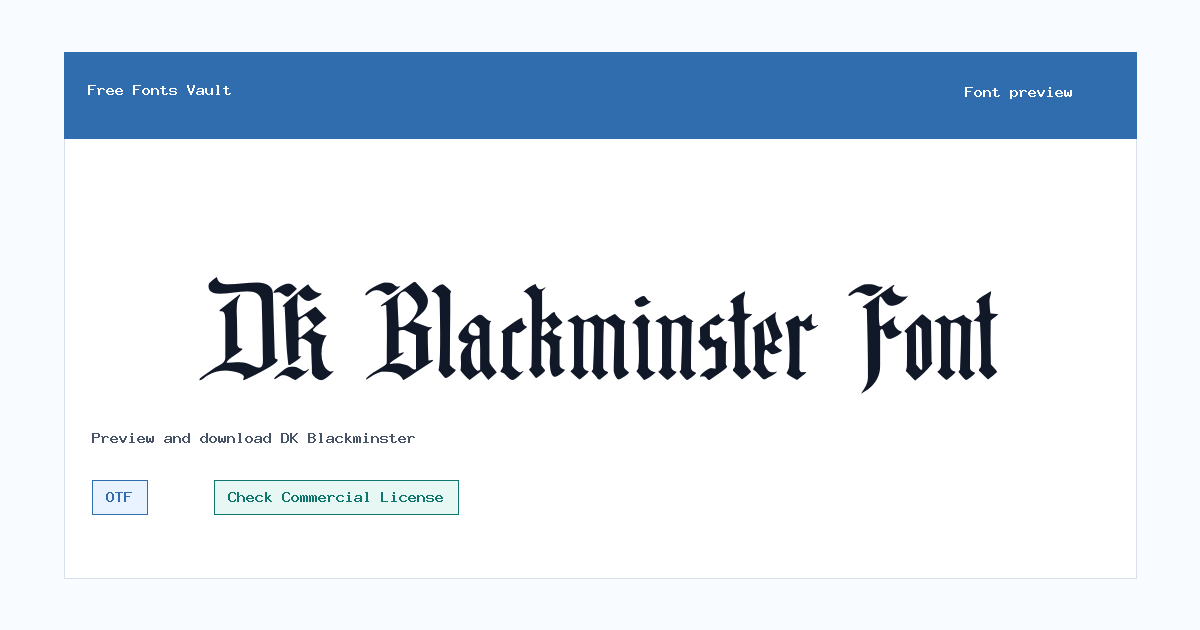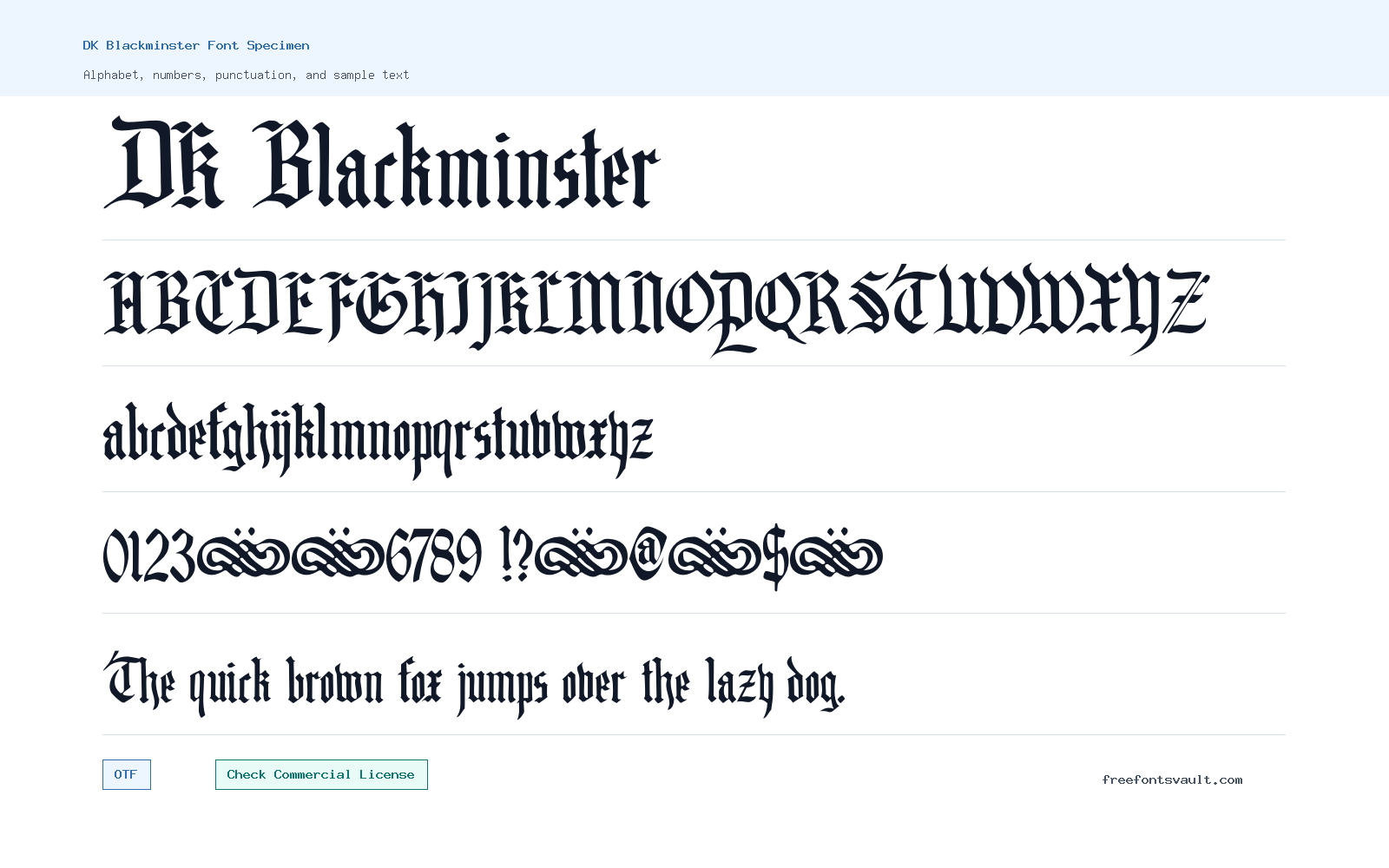
DK Blackminster
DK Blackminster Font
DK Blackminster is a heavy display font in OTF format, suited to short, attention-focused text rather than long reading. Use the preview tool to test names, titles, labels, and poster-style words before downloading.
DK Blackminster comes as a single regular style with a 900 weight, so it is best handled as a bold display choice. It can give short words a strong presence, especially when the text has room to breathe. Because there is only one listed style, the font is most useful when you need one clear decorative voice rather than a full type family with matching light, italic, or text weights.
Try DK Blackminster with uppercase words, short names, event titles, book-style headings, labels, and social graphics. Keep the copy brief and check spacing carefully in the preview, since heavy fonts can lose detail when letters are crowded. For longer paragraphs, pair it with a simpler serif or sans serif font and reserve DK Blackminster for the main title or accent text.
DK Blackminster is strongest when the font itself is part of the atmosphere. Use it for gothic-inspired titles, fantasy labels, dramatic invitations, posters, and display graphics where a plain sans serif would feel too neutral. Because decorative letterforms can be dense, the preview should be checked with the exact word or name you plan to use.
• Single regular variant with 900 weight
• Best suited to short display text and decorative headings
• Useful for testing bold titles, labels, and poster-style wording
• Posters and event titles
• Book, game, or album-style headings
• Logo mockups and wordmark experiments
• Labels, badges, and short decorative text
• Social media graphics with brief wording
Is DK Blackminster good for paragraphs?
It is better for short display text. Use it for titles, names, labels, and decorative words, then pair it with a simpler font for longer reading.
Is DK Blackminster meant for paragraphs?
No. It is better for titles and decorative words. Use a simpler font for long reading.